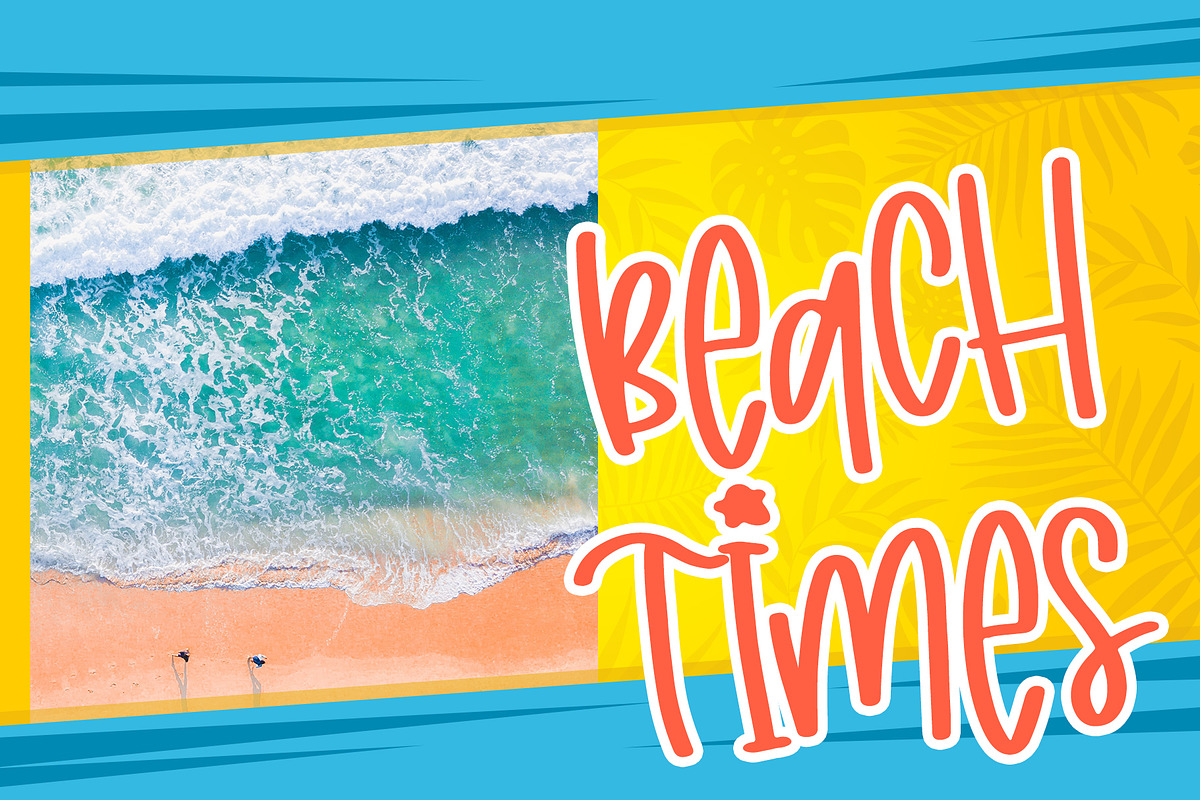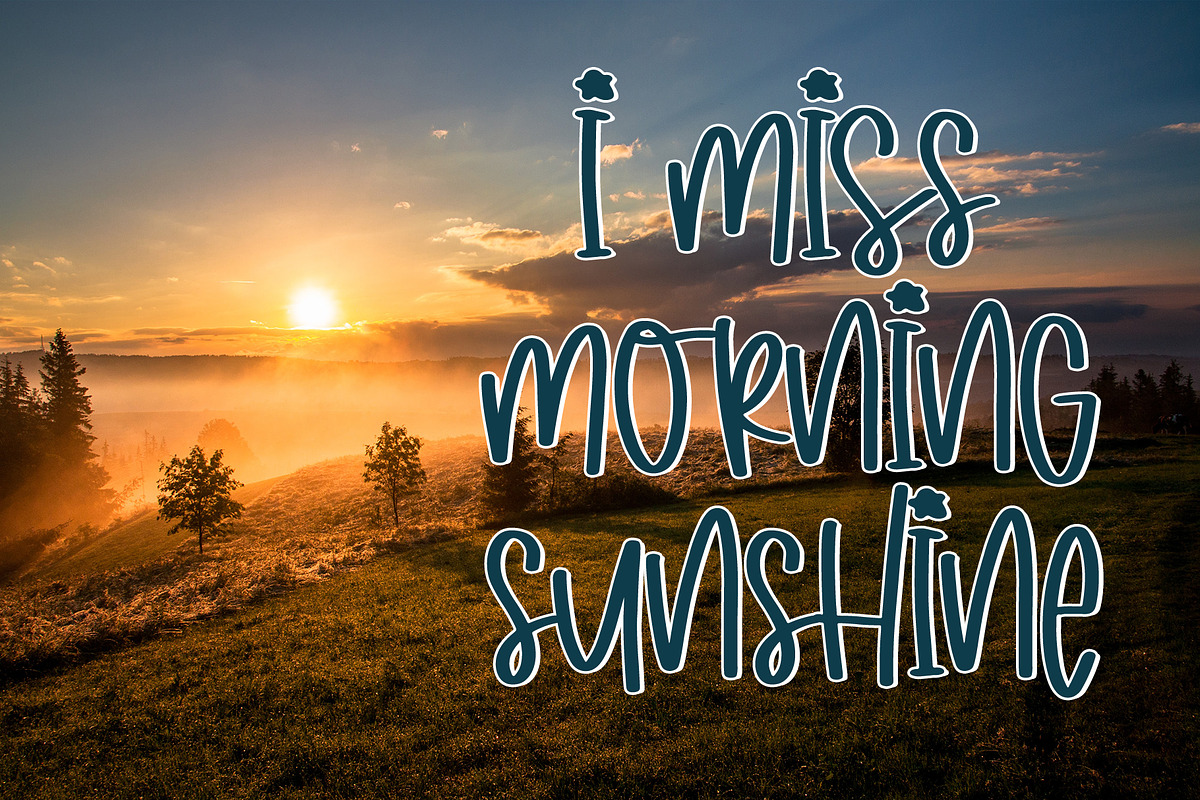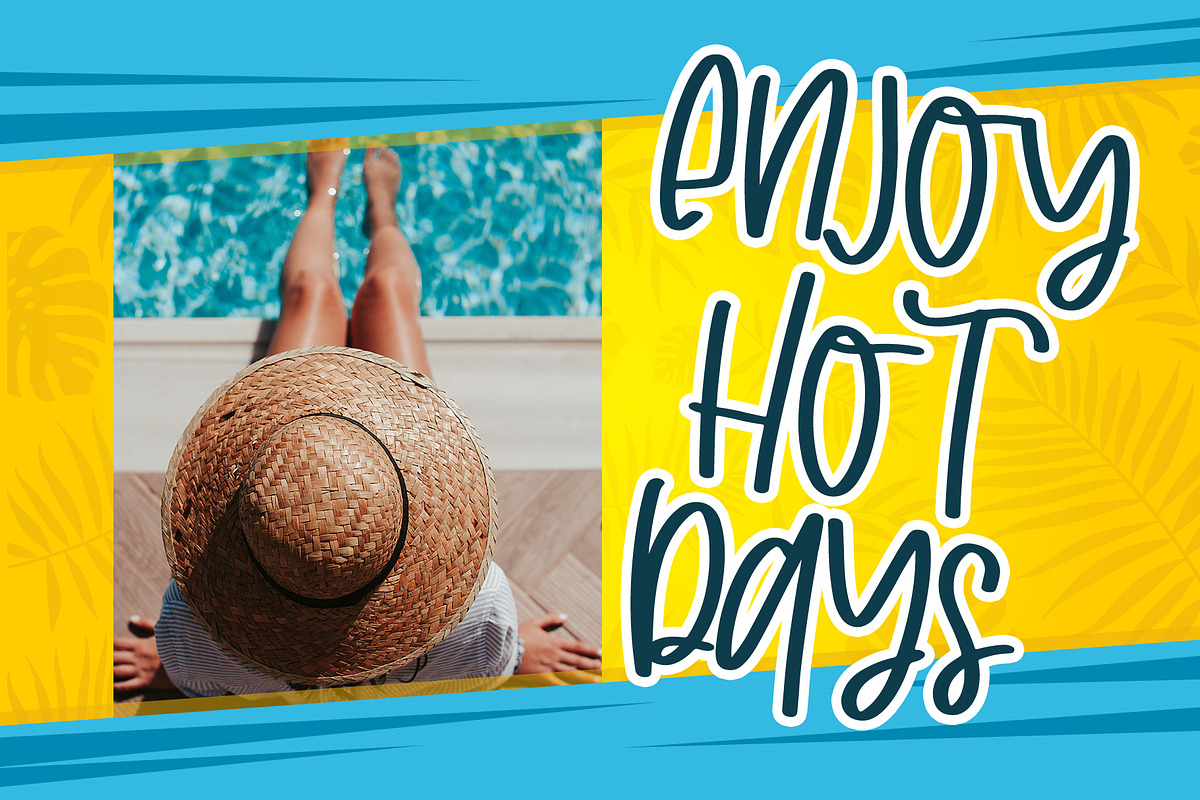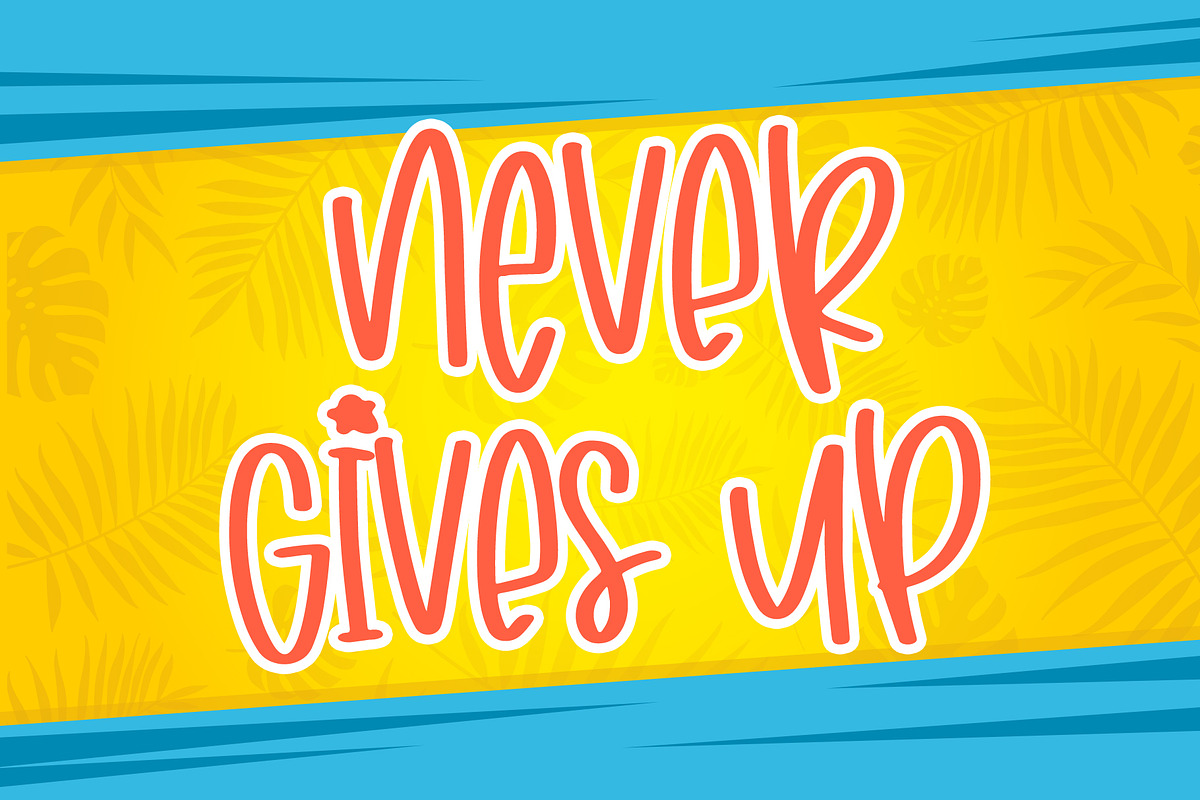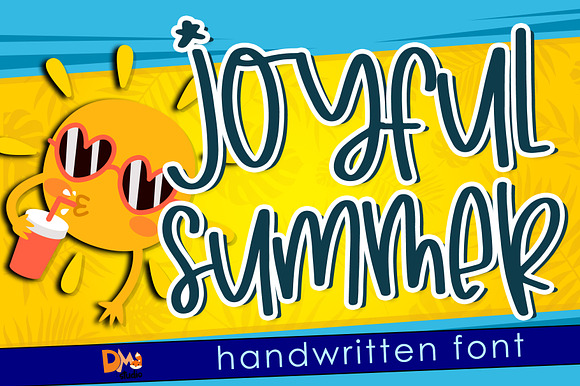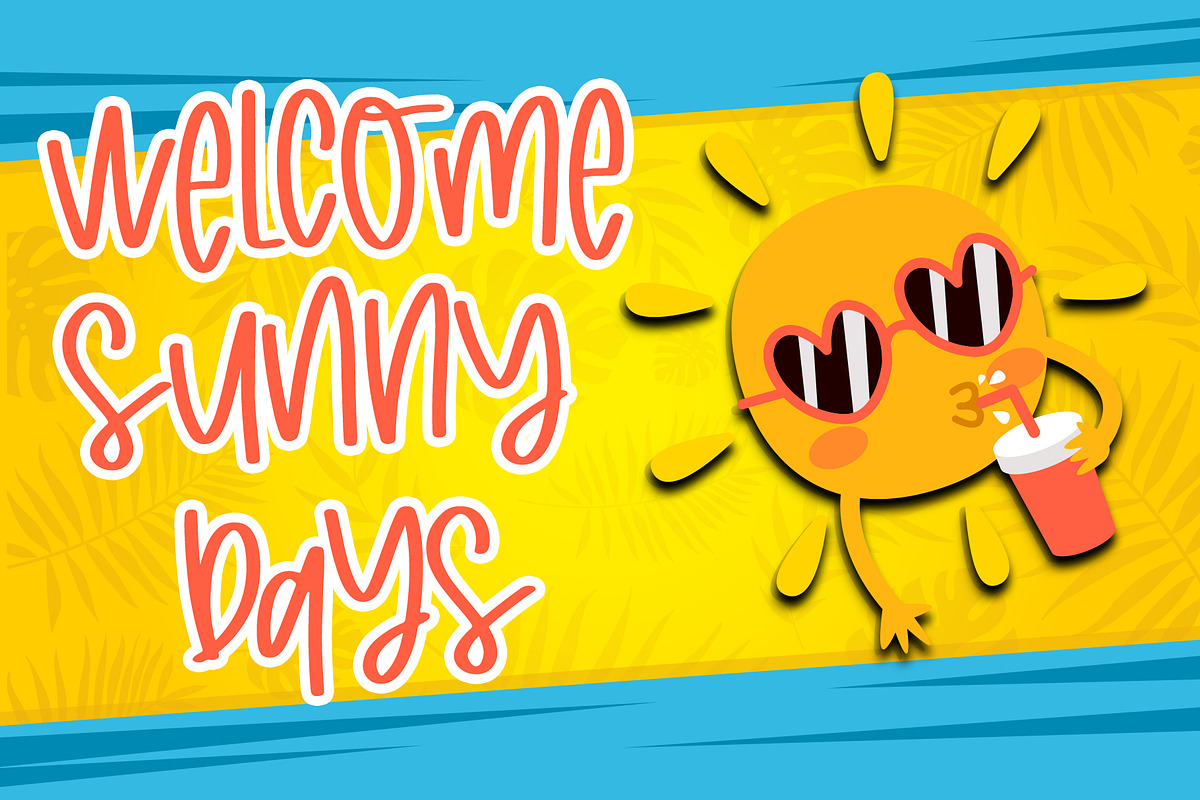
Joyfull Summer - Handwritten Font
Joyful Summer is a quirky, and unique with messy look handwritten font. Make your design more cheerful with this stylish font!
Joyfull Summer - Handwritten Font by Dm Studio fits naturally into Branding, posters, packaging, typography.